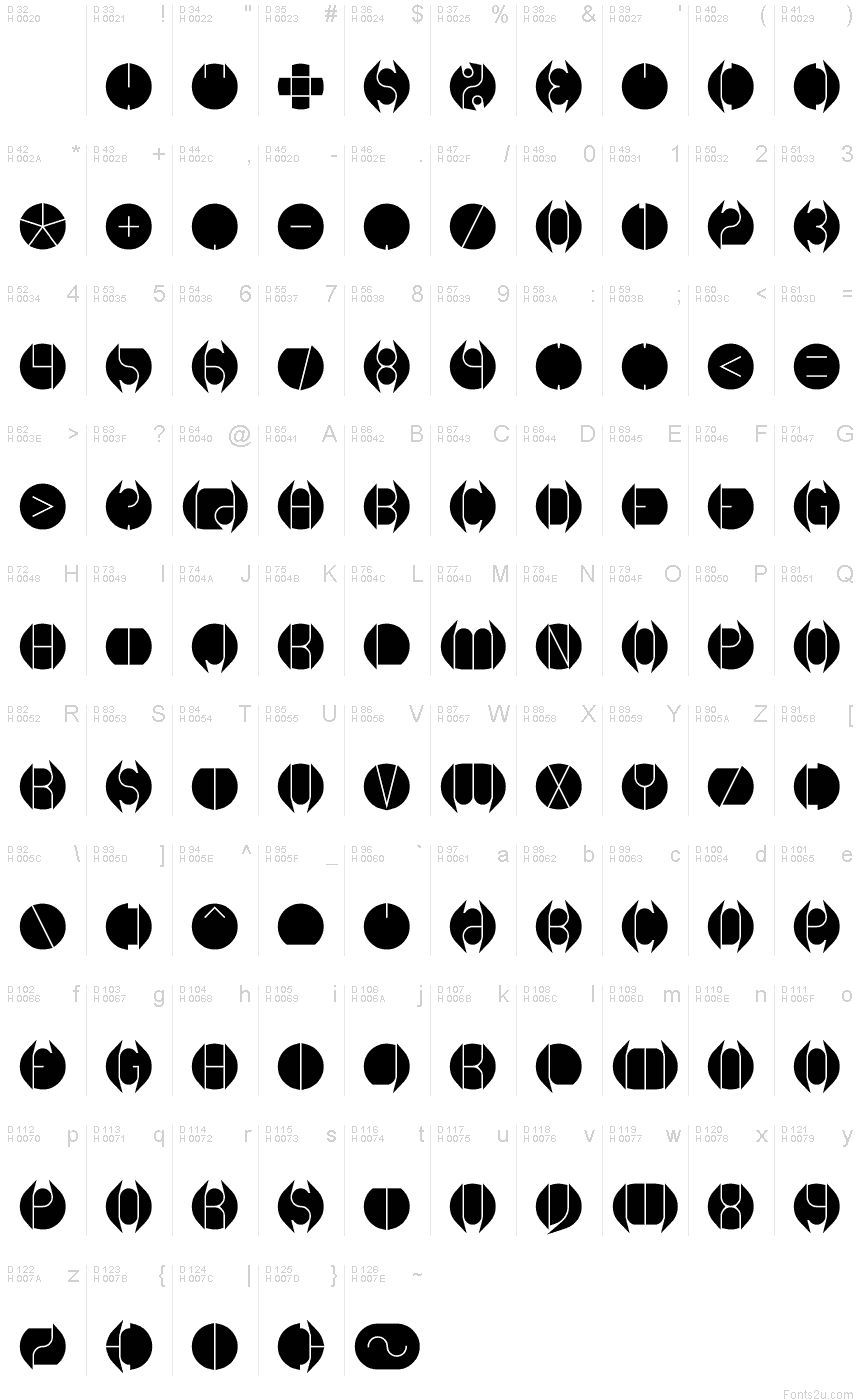
DB Layer 1 BRK
DB Layer 1 BRK font by ÆNIGMA FONTS is a free groovy display typeface with chunky, near-circular forms carved by sharp vertical slices. Those cutouts create a bold rhythm—like paper stencils or vinyl letters—so even heavy black shapes still feel airy and animated. It’s graphic, punchy, and made to grab attention fast.
Using DB Layer 1 BRK, you’ll get strong results on posters, album art, nightclub flyers, retro logos, sticker designs, product packaging, and punchy title cards. This free font also shines in motion graphics where the segmented shapes flicker nicely. Pair it with a calm geometric sans and give it room—bigger sizes and slightly open spacing help the cuts read cleanly.